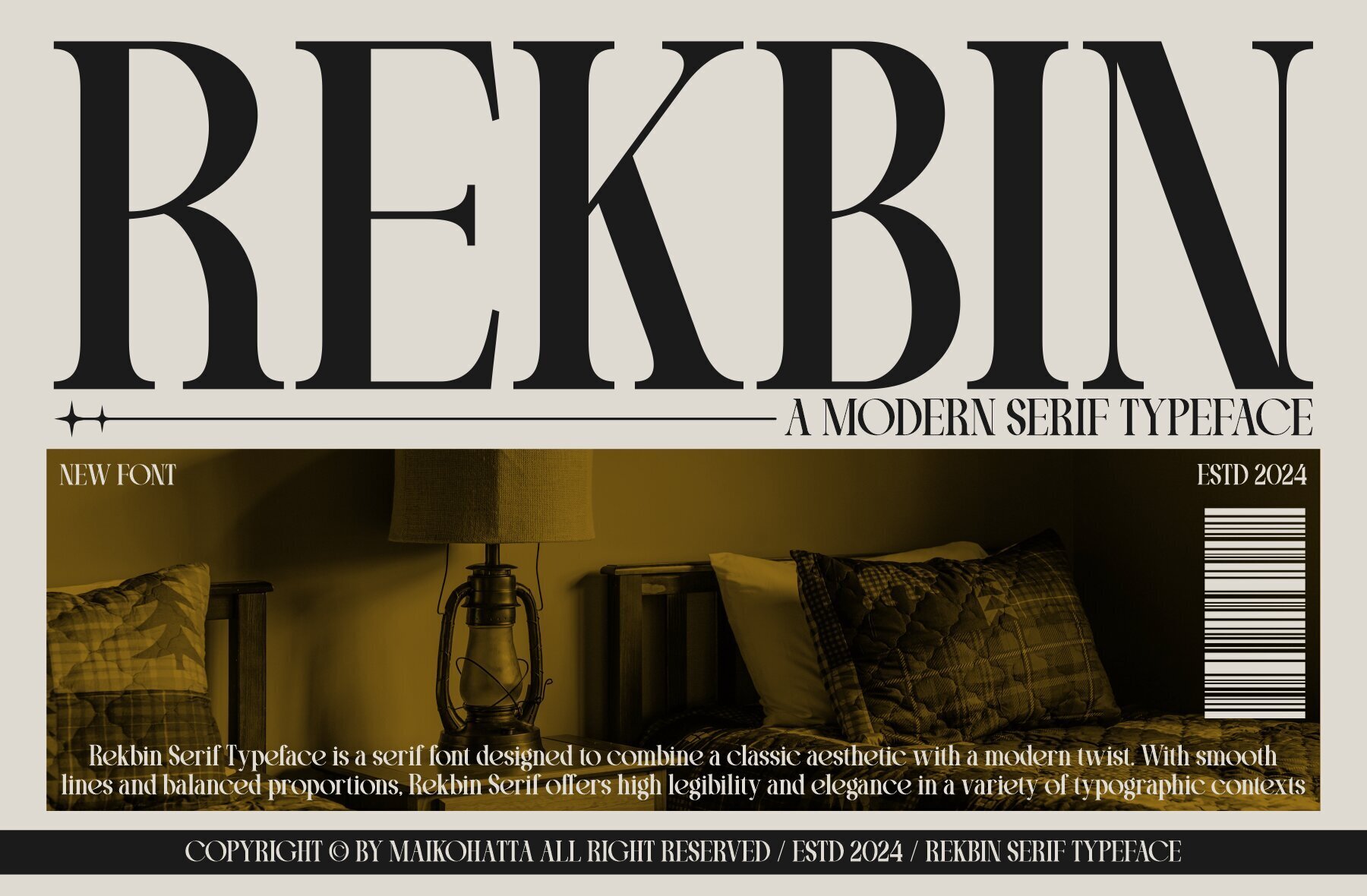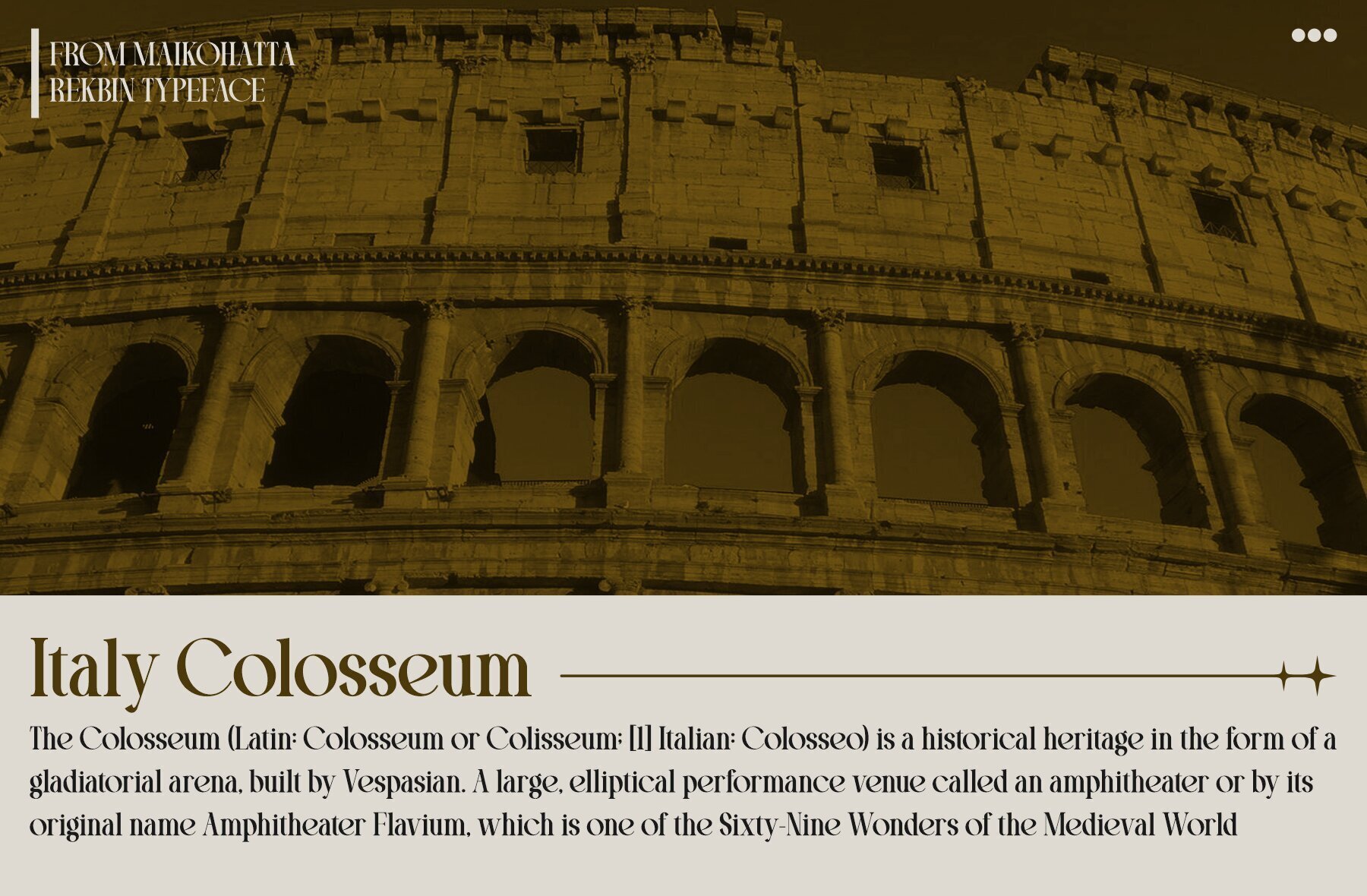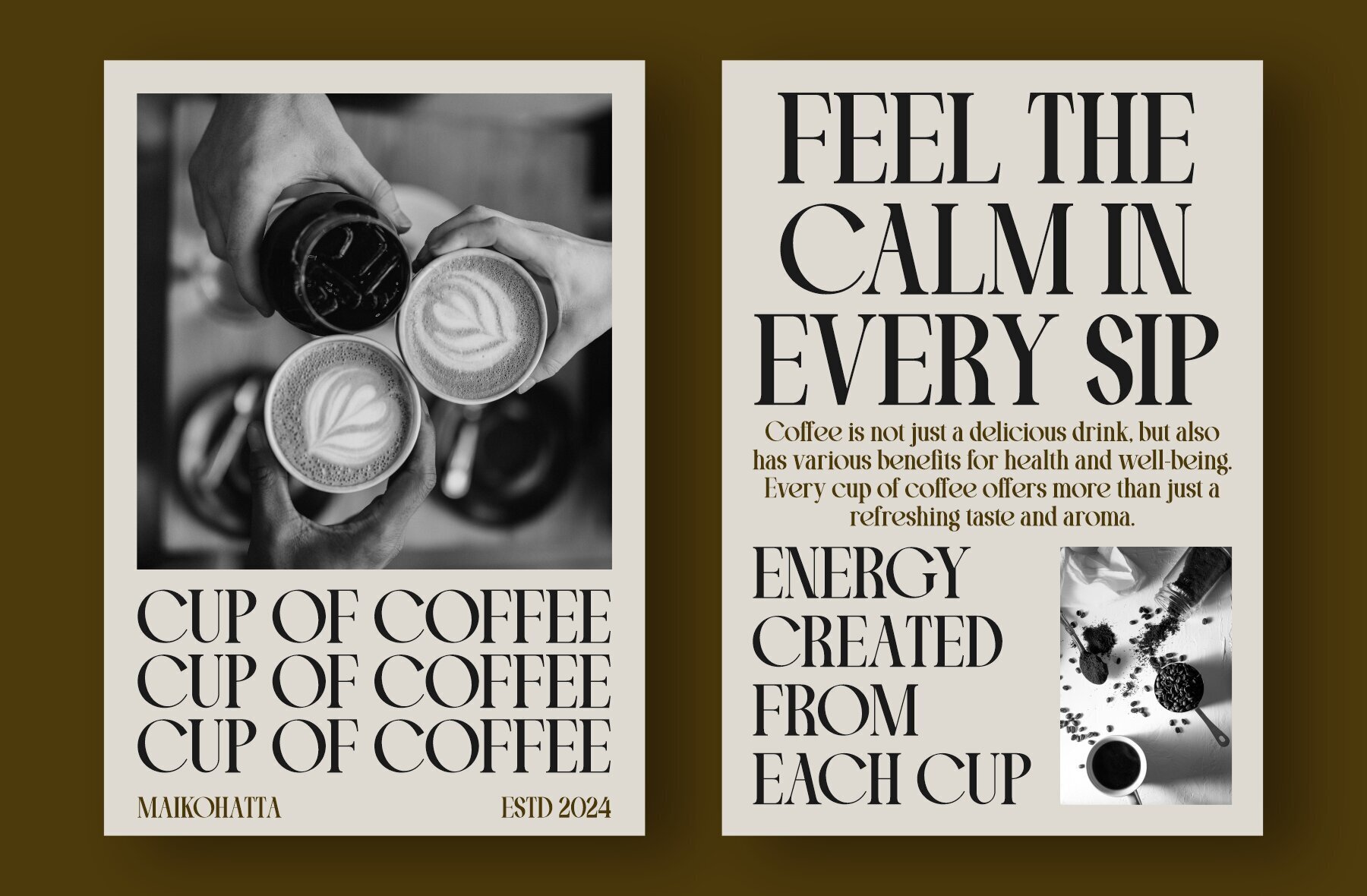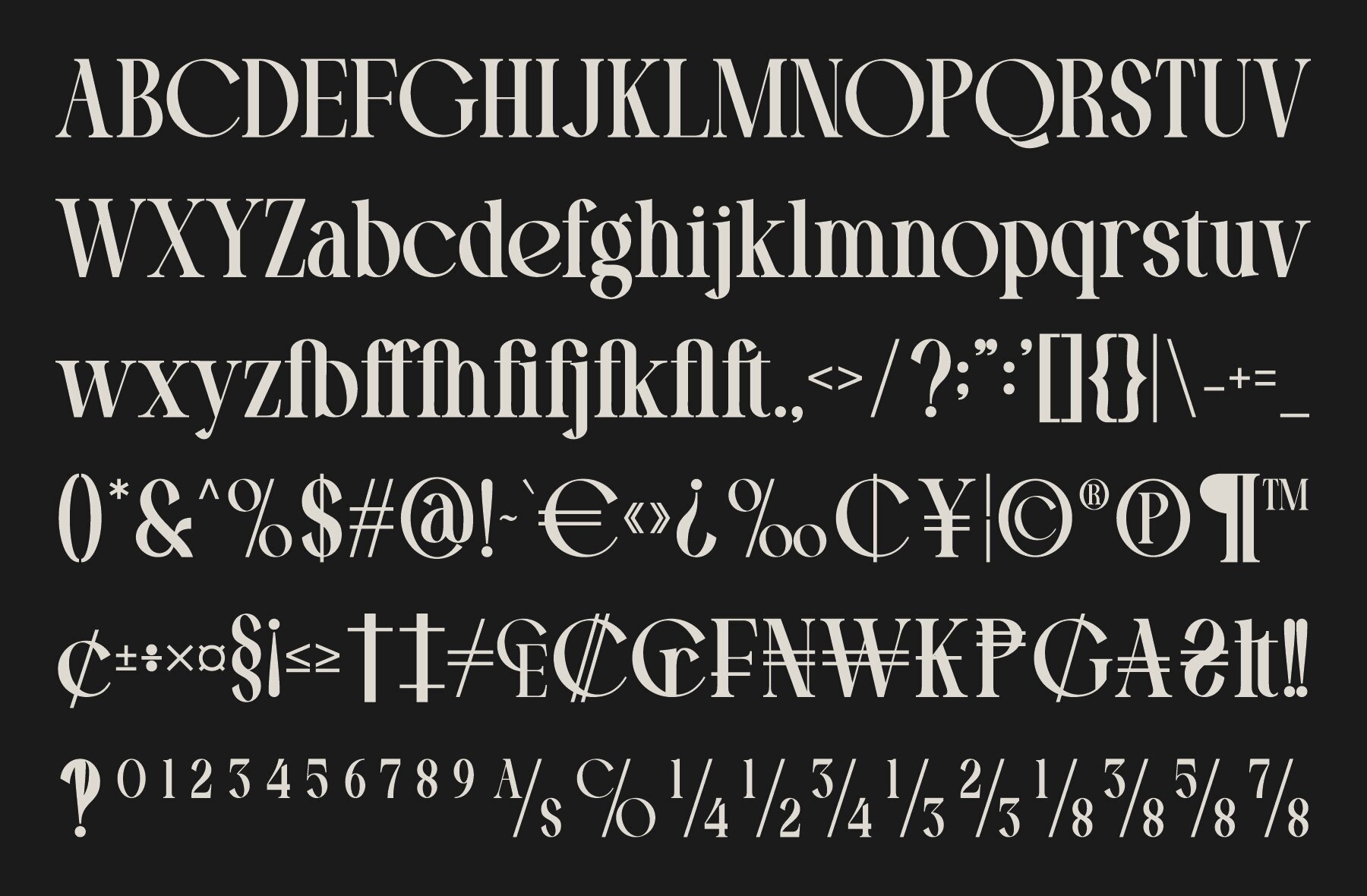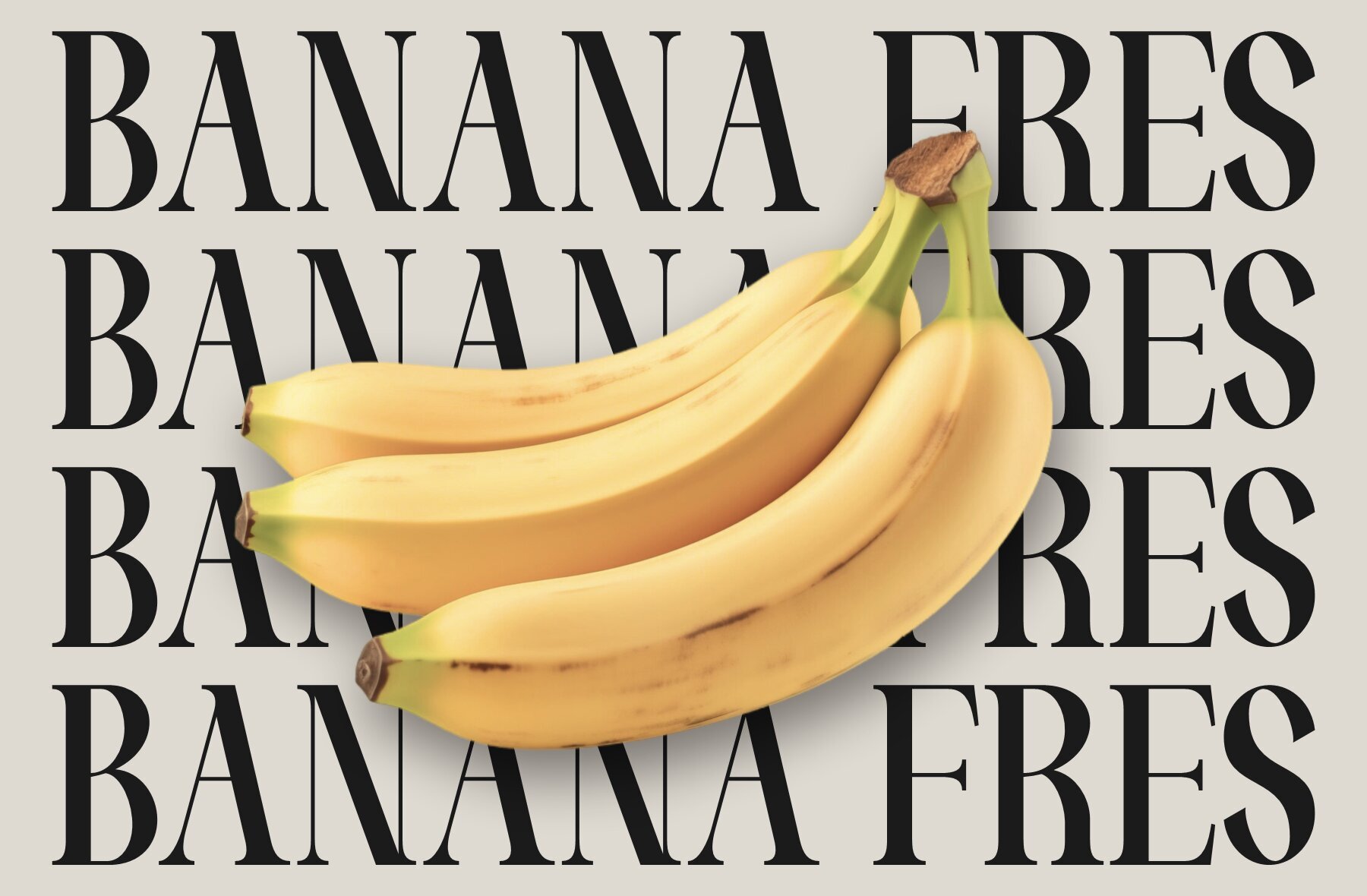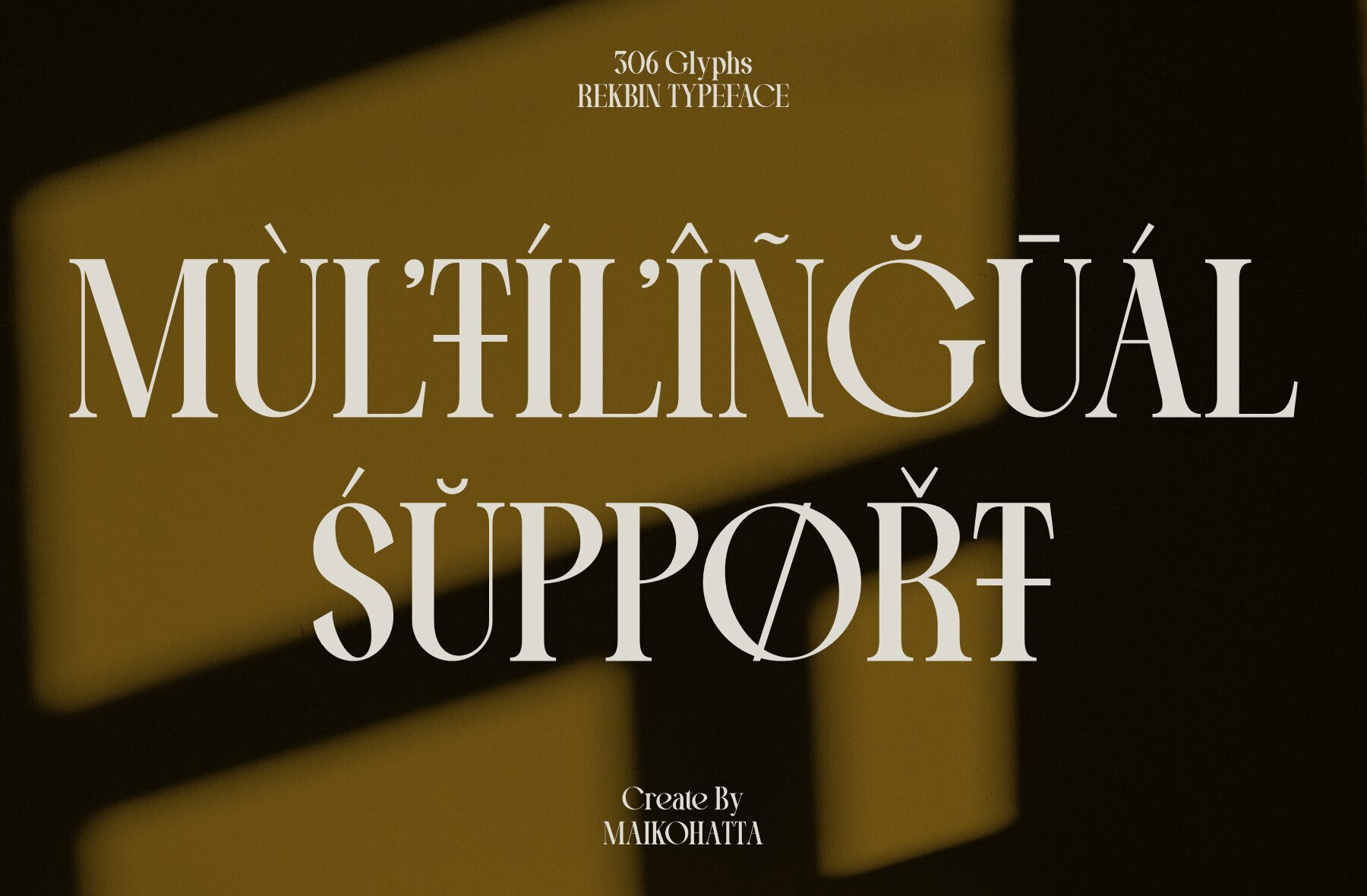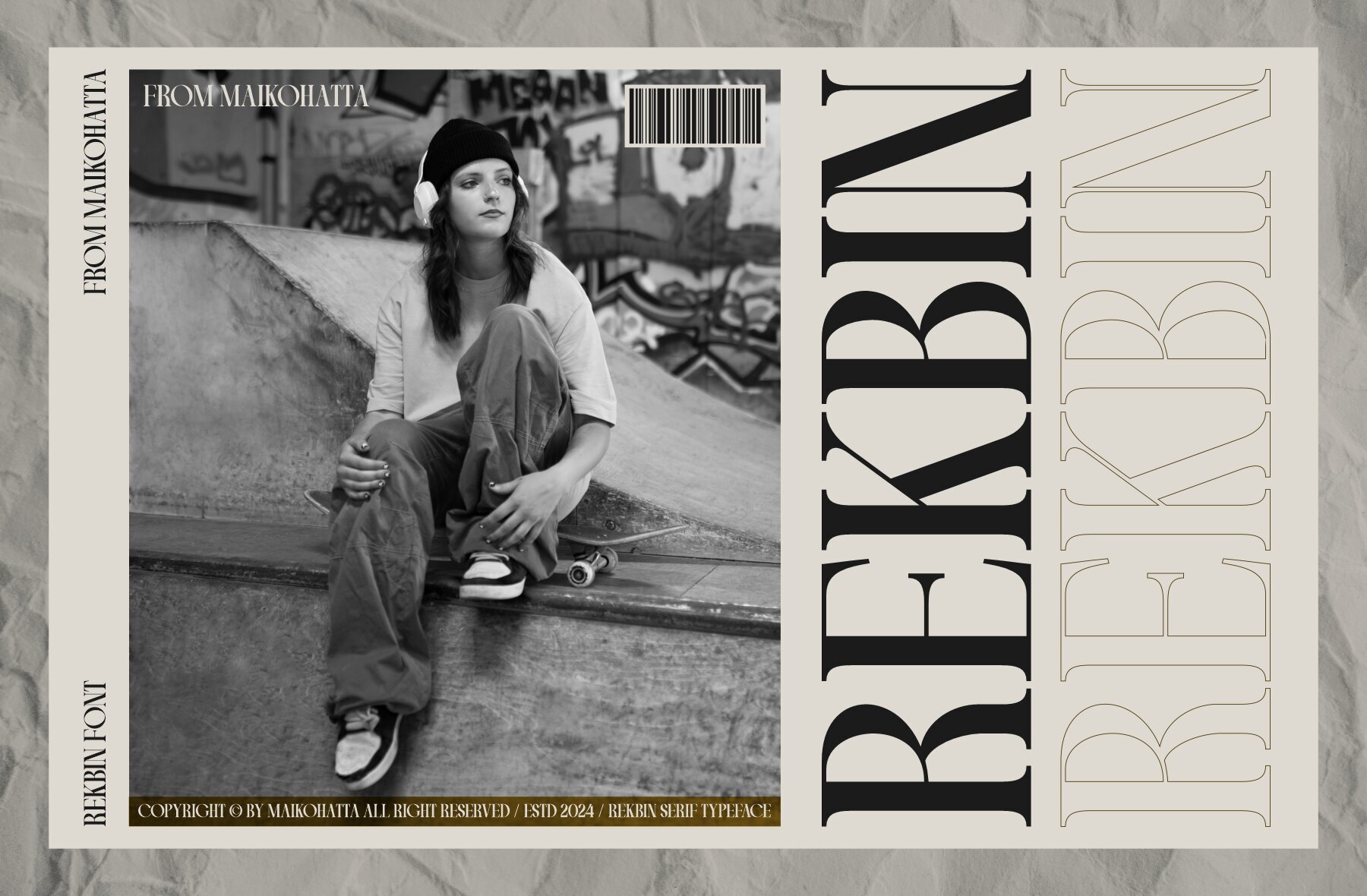
Rekbin Font
Rekbin Regular
Rekbin offers a modern serif typeface with a balanced proportion of stroke thickness and fineness, ensuring both attractiveness and easy readability. The font's contemporary design is characterized by bold distinctions between thick and thin lines, lending an understated yet distinctive touch to your projects.
With its blend of elegance and clarity, Rekbin is ideal for various graphic and digital design needs. Perfect for headlines, editorial layouts, and branding elements, this typeface adds a sophisticated charm to any visual composition.